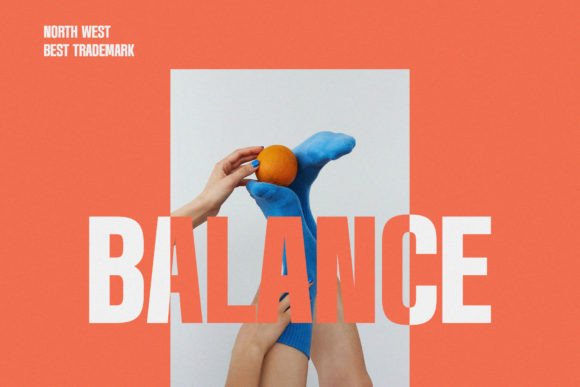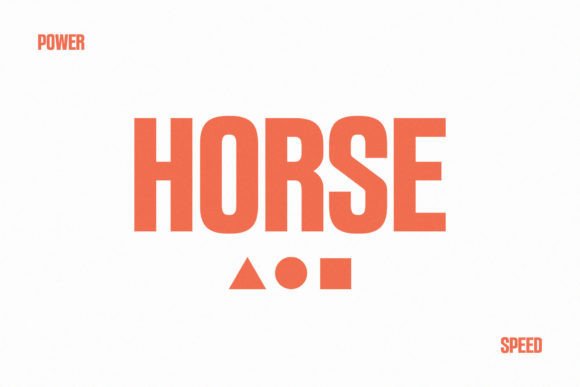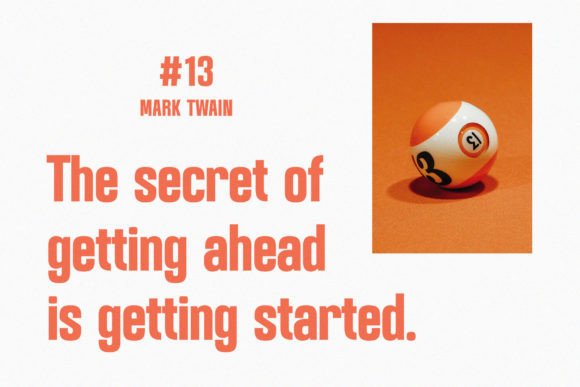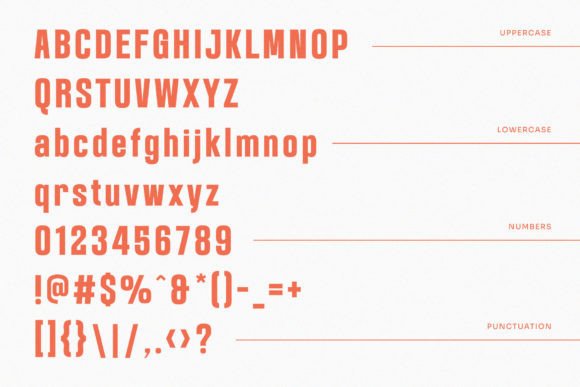
The Ultimate Guide to Gelline Font: A Designer’s New Best Friend
I’ll never forget the time I was working on a project for a client who wanted a modern, sleek look. I had spent hours browsing through font libraries, but nothing seemed quite right. That was until I stumbled upon Gelline Font. Its clean lines and simple design immediately caught my eye, and I knew I had found the perfect fit. In this article, I’ll share my experience with Gelline Font, its features, and how to make the most of it in your designs.
An Honest Review of Gelline Font
What I Love About Gelline Font
- ✨ Versatility: Gelline Font is a sans serif font that can be used in a variety of contexts, from body text to headlines and titles.
- ✅ Readability: Its clean lines and simple design make it easy to read, even at small font sizes.
- ✅ Neutrality: Gelline Font is a very “neutral” font, meaning that it doesn’t have any particular associations with a certain time period or style.
While Gelline Font is an excellent choice for many design projects, it’s not perfect. Here are a few things to keep in mind:
- ⚠️ Limited character set: Gelline Font may not have an extensive character set, which can limit its use in certain projects.
- 🤔 Not ideal for body text in long documents: While Gelline Font is great for short blocks of text, it may not be the best choice for long documents or articles.
The Backstory of Gelline Font
Gelline Font was designed by a team of typographers who wanted to create a font that was both modern and timeless. Inspired by the clean lines and simple shapes of modernist design, Gelline Font is a versatile sans serif font that’s perfect for a wide range of design projects.
| Font Name | Gelline Font |
| Author | BrandSemut |
| What is Gelline Font? | Gelline Font is a versatile sans serif font that’s perfect for a wide range of design projects. |
| What are the benefits of using Gelline Font? | The benefits of using Gelline Font include its versatility, readability, and neutrality. It’s perfect for projects that require a modern and timeless look. |